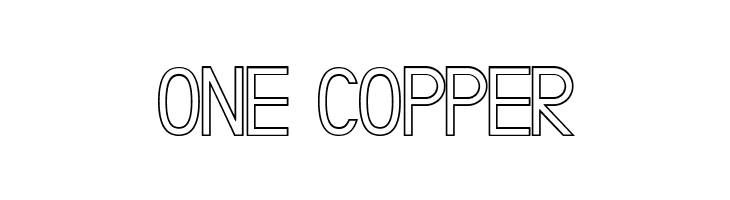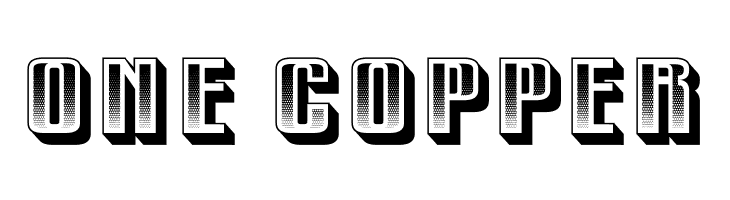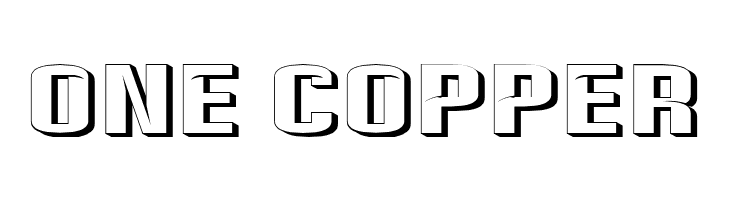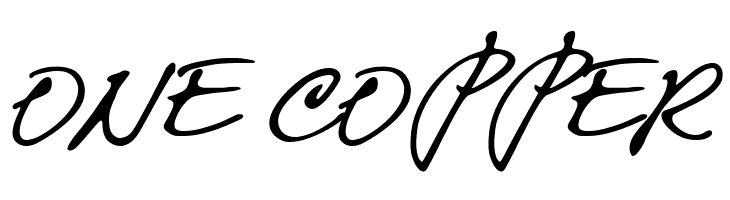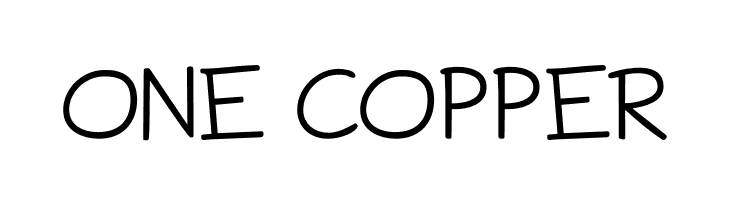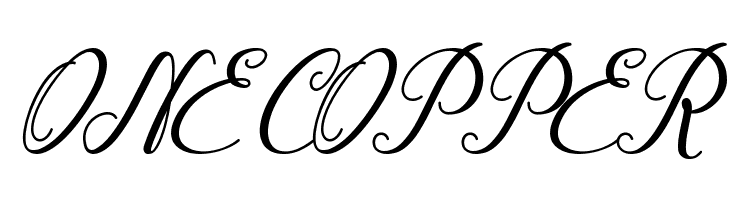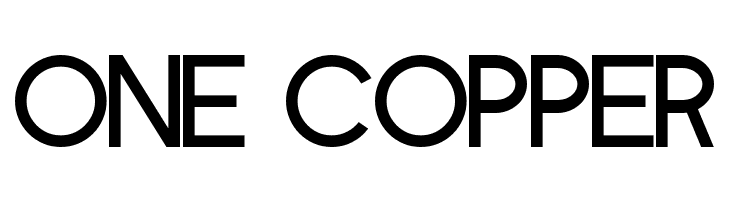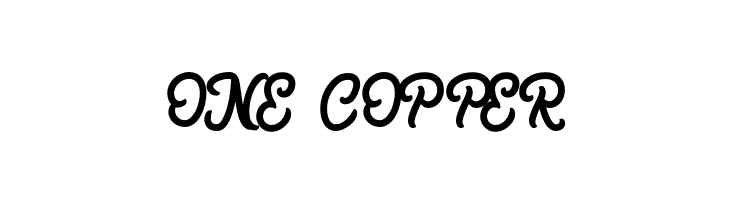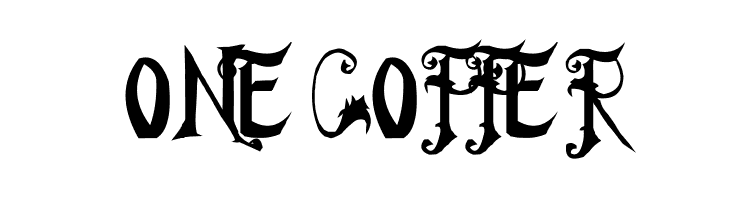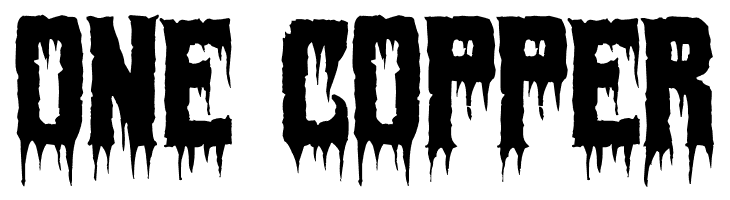
A modern, geometric sans-serif font with clean lines and uniform stroke widths.
A modern, geometric sans-serif font with uniform strokes and a sleek appearance.
A modern, outline-style font with a clean, geometric design.
A modern, geometric outline font with uniform line thickness.
A bold, geometric sans-serif typeface with a modern and clean appearance.
A bold, geometric sans-serif font with a modern and clean appearance.
A bold, italicized font with a modern and sleek appearance.
A bold, italicized font with a dynamic and assertive style.
A modern, italicized font with sleek, consistent strokes and a dynamic appearance.
A modern, italicized font with a sleek and streamlined appearance.
A modern, geometric sans-serif font with uniform strokes and clear characters.
A bold, geometric typeface with clean lines and modern aesthetics.
A bold, modern sans-serif font with clean lines and geometric shapes.
A sleek, italicized font with a modern and dynamic style.
A modern, italic font with clean lines and a slightly condensed style.
A modern, outlined geometric font with a clean and minimalistic style.
A modern, geometric outline font with consistent line thickness and open structure.
A modern, geometric sans-serif font with a clean and balanced design.
A modern, geometric sans-serif font with a clean and balanced appearance.
A bold, geometric font with a three-dimensional shadow effect.
A dynamic, fluid handwritten script with elegant cursive strokes.
A playful, flowing script font with smooth, connected strokes.
A bold, collegiate-style font with an outline and shadow effect.
A futuristic, geometric font with bold, angular shapes and contrasting strokes.
An elegant, italic script font with flowing, interconnected letters and ornate swashes.
A playful, hand-drawn font with a whimsical and friendly style.
A decorative, creature-themed display font with bold, illustrative glyphs.
A bold, three-dimensional font with dotted inner detailing and strong shadow effects.
A decorative and whimsical font with intricate flourishes and embellishments.
A modern, geometric sans-serif font with clean lines and a sleek appearance.
A modern, geometric sans-serif font with a clean and balanced design.
A bold, dripping font ideal for horror-themed designs.